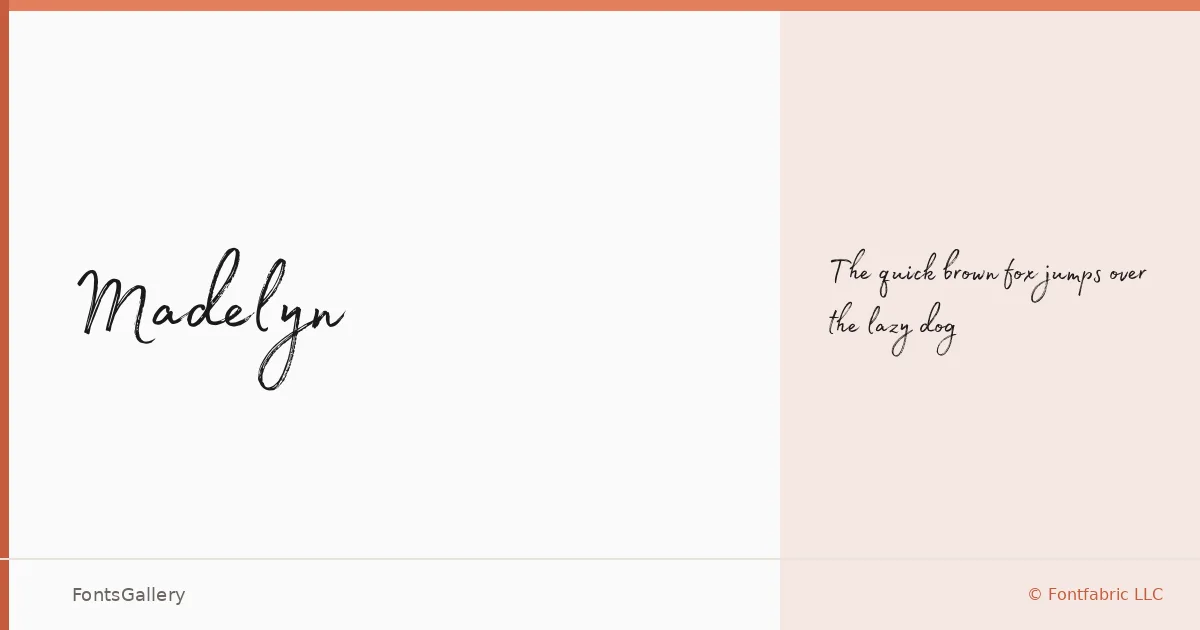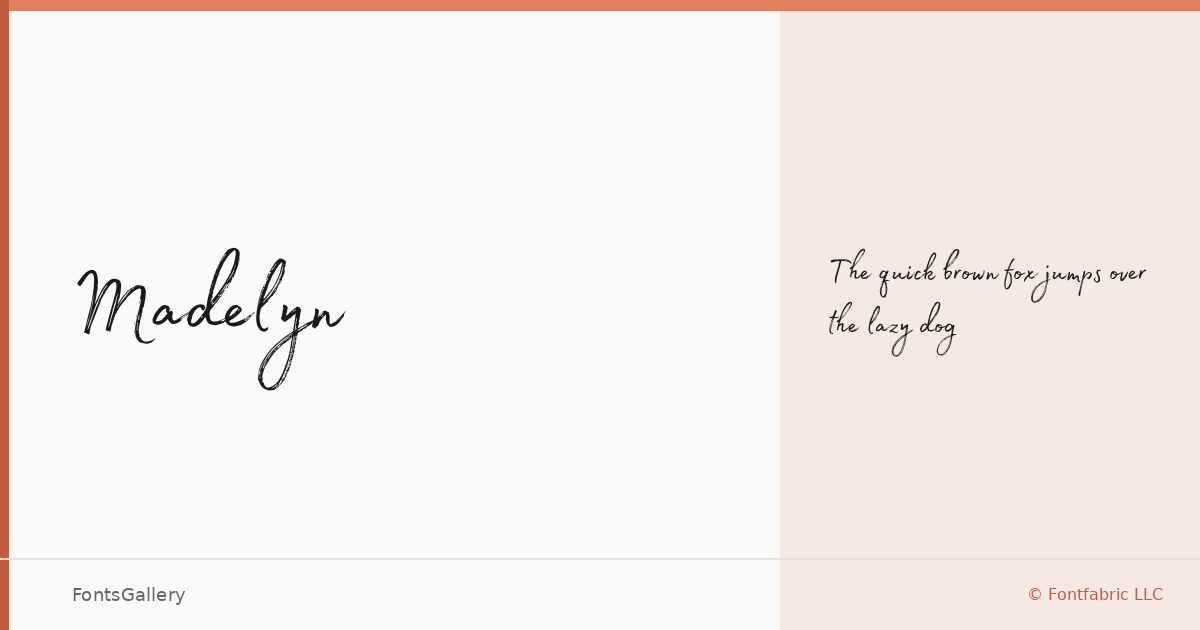
About Madelyn Font
There is a particular ease to this script — the kind of unhurried, flowing line that comes from a hand that knows exactly where it is going. Designed by Jacklina Jekova at Fontfabric LLC, Madelyn is a handwritten script that carries genuine warmth without tipping into sentimentality. The letterforms connect gracefully, with the sort of calligraphic authority that reads as personal rather than mechanical.
The family ships as a single Regular weight in OTF format, which keeps it focused and intentional. The mood sits squarely in classic and romantic territory — think ink on fine paper, not a casual ballpoint. It covers both Latin and Cyrillic, a meaningful advantage for projects that need the same elegant register across those writing systems. The elegant curves hold up well at display sizes, where the fine strokes and natural rhythm of the script are most visible.
This is a face built for moments that call for ceremony: wedding stationery, invitation cards, branding marks, and logo treatments where a handcrafted signature quality is the whole point. Greeting card work is a natural fit as well. For contrast pairings, the listed companions span a useful range — the structured neutrality of Helvetica or Asap, the editorial warmth of Canela or Adobe Caslon Pro, and the refined geometry of ABC Arizona all give the script room to lead while keeping body copy grounded.